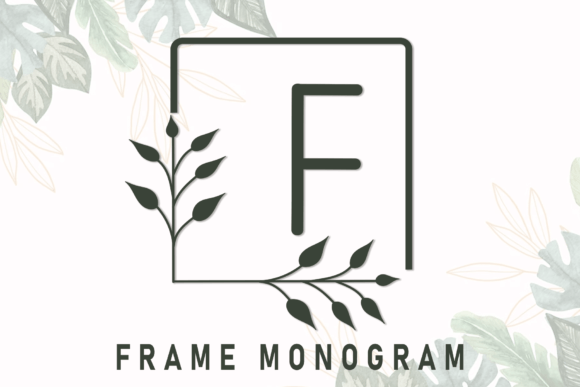
Welcome to the world of elegance and charm, where Frame Monogram Font reigns supreme. This extraordinary decorative font is crafted with meticulous attention to detail, boasting a collection of exquisite ornaments that will enchant you from the very first glance. Step into a realm of creativity where your designs will be transformed into masterpieces that captivate and inspire.
With Frame Monogram Font, you hold the key to unlocking a treasure trove of possibilities. Whether you're a seasoned designer or just starting your creative journey, this font will ignite your imagination and elevate your projects to new heights. Its delicate curves and intricate embellishments will add a touch of sophistication to wedding invitations, greeting cards, social media graphics, and more.
Picture this: you're designing a wedding invitation for the most special day of your life. You want it to be a reflection of your unique love story, something that will be cherished for years to come. Frame Monogram Font steps onto the scene, offering you the perfect canvas to paint your romantic vision. Its elegant strokes will guide your words, creating an invitation that truly captures the essence of your love.
Or perhaps you're designing a greeting card for a dear friend or family member. You want to convey your heartfelt sentiments in a way that's both meaningful and memorable. Frame Monogram Font will lend its graceful presence, allowing your words to flow with sincerity and warmth. Its intricate ornaments will add a touch of whimsy and charm, creating a card that will be treasured long after it's received.
The beauty of Frame Monogram Font lies in its versatility. It's not confined to a single style or genre. Its adaptability knows no bounds, making it the perfect choice for a wide range of creative endeavors. From elegant wedding invitations to playful social media graphics, Frame Monogram Font will seamlessly adapt to your vision, adding a touch of refinement and sophistication wherever it's used.
So, if you're seeking a font that will transform your designs into works of art, look no further than Frame Monogram Font. Let its exquisite ornaments and delicate curves elevate your creativity and create projects that will leave a lasting impression.